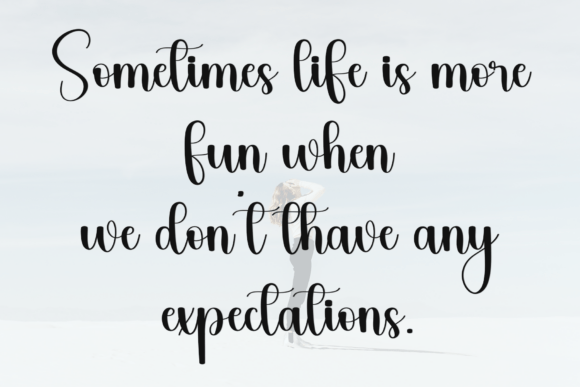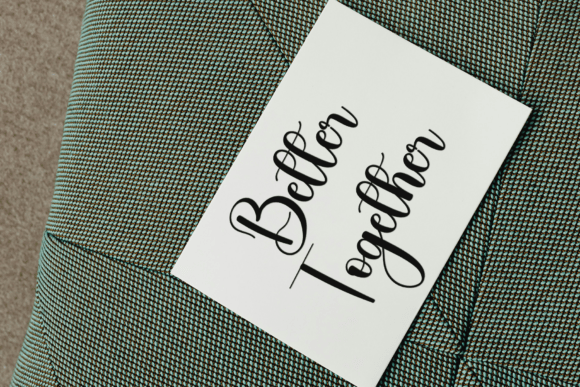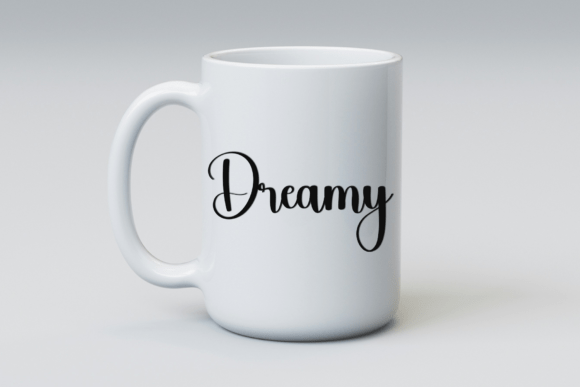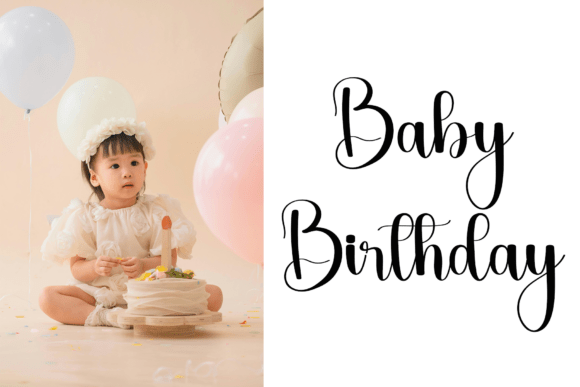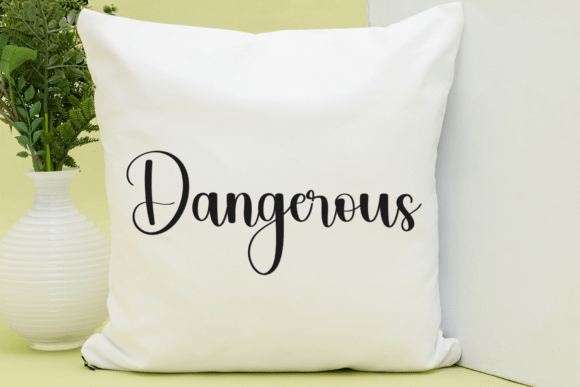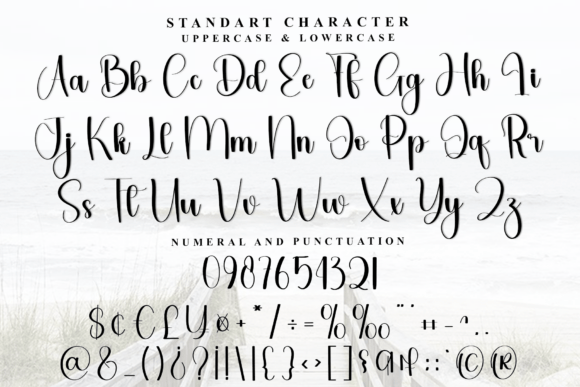
The Daddy Date Font: A Handwritten Script with a Modern Twist
I’ll never forget the design moment that led me to discover the Daddy Date Font. I was working on a wedding invitation project for a close friend, and I was struggling to find the perfect font that captured the casual yet elegant vibe of their special day. That’s when I stumbled upon this beautiful handwritten script font, and it instantly became the star of the show. In this article, I’ll share my experience with the Daddy Date Font, its features, and how to make the most of it in your designs.
A Personal Review: What I Love and What to Watch Out For
As a designer, I’m always on the lookout for fonts that bring a personal touch to my projects. Here’s what I love about the Daddy Date Font:
- ✨ Fluid strokes and natural curves that mimic real handwriting, giving it a warm and inviting feel.
- ✅ Perfect for branding, wedding invites, quotes, and lifestyle blog graphics, it brings a stylish and heartfelt touch to any project.
- 💫 Smooth flow and subtle elegance that elevates the overall design.
However, there are a few quirks to be aware of:
- 🤔 Some letters may appear a bit cramped at smaller font sizes, so be sure to adjust the tracking accordingly.
- ⚠️ Limited availability of stylistic alternates, but the existing ones are cleverly designed to add variety to your text.
The Daddy Date Font was created with the intention of capturing the essence of real handwriting in a digital format. The designer aimed to create a font that would bring a personal touch to various design projects, from wedding invitations to lifestyle blog graphics. With its fluid strokes and natural curves, this font is sure to become a favorite among designers and crafters alike.
| Font Name | Daddy Date Font |
| What type of projects is the Daddy Date Font best suited for? | The Daddy Date Font is ideal for branding, wedding invites, quotes, and lifestyle blog graphics. |
| Is the Daddy Date Font available in different weights or styles? | The Daddy Date Font comes in a single weight, but it features stylistic alternates and ligatures to add variety to your text. |